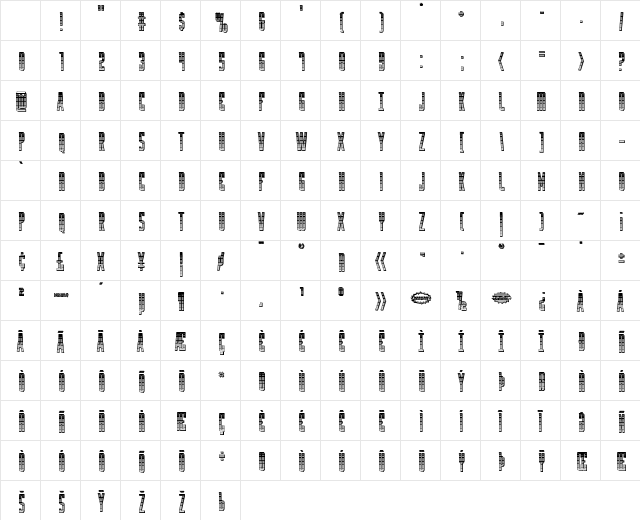
Y-Files Chrome Regular
Y-Files Chrome Family
Design Context for Y-Files Chrome
Y-Files Chrome is a composed and adaptable typeface that performs quietly and consistently across a wide range of design contexts.